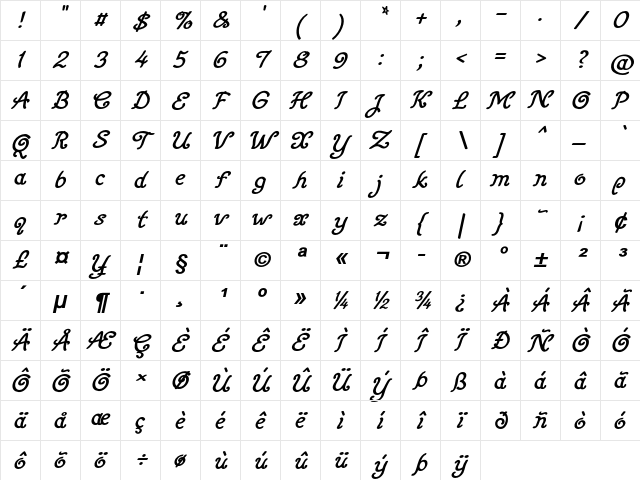
Bellavo Bold Italic
Design Context for Bellavo
Bellavo is a composed and adaptable typeface that performs quietly and consistently across a wide range of design contexts. The slanted form adds forward momentum and visual energy. Its bold stroke weight gives it real presence on the page.
Pro Tip: Use Bellavo for emphasis, pull quotes, and subheadings where its slanted energy can add rhythm to the layout.